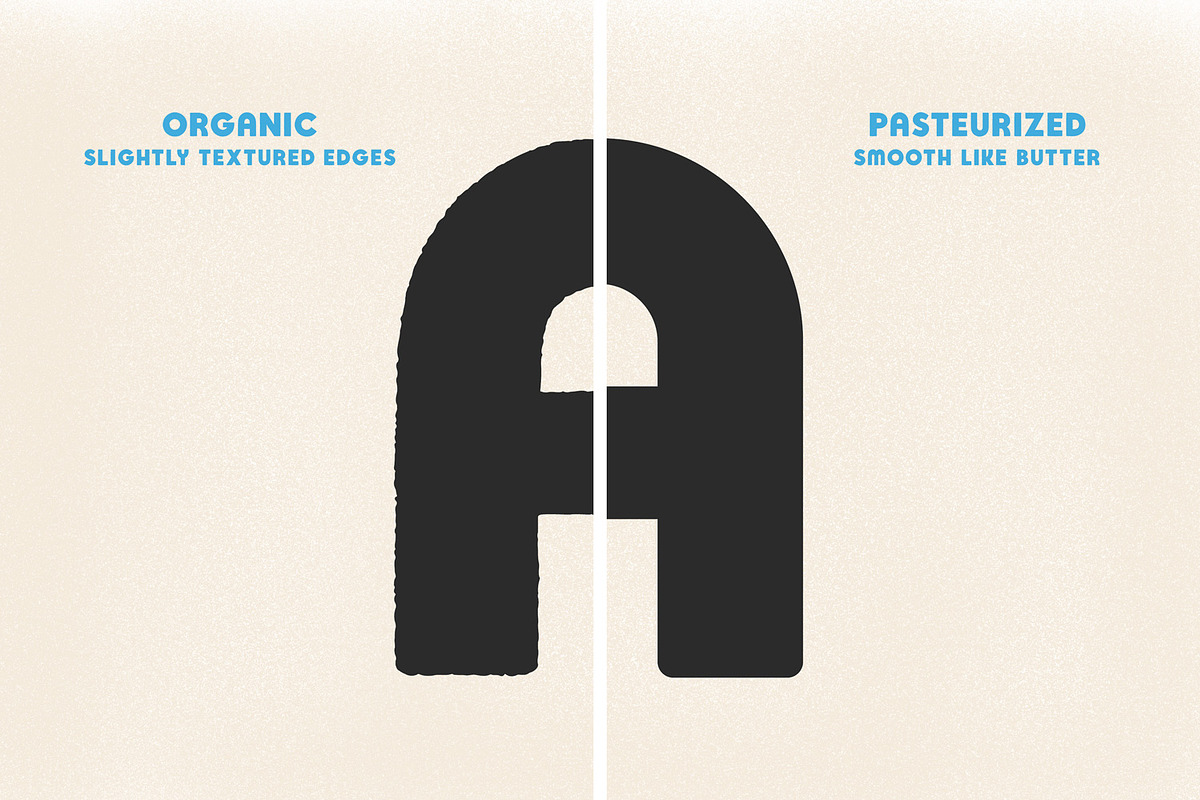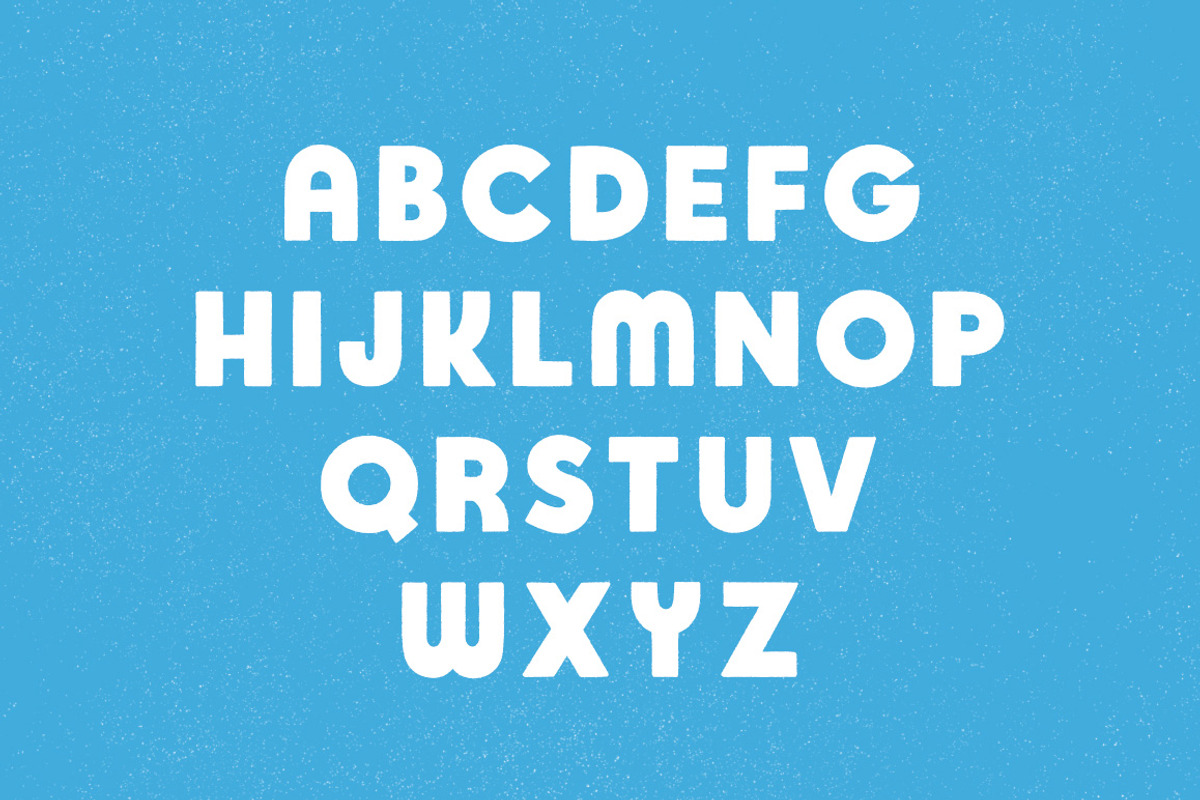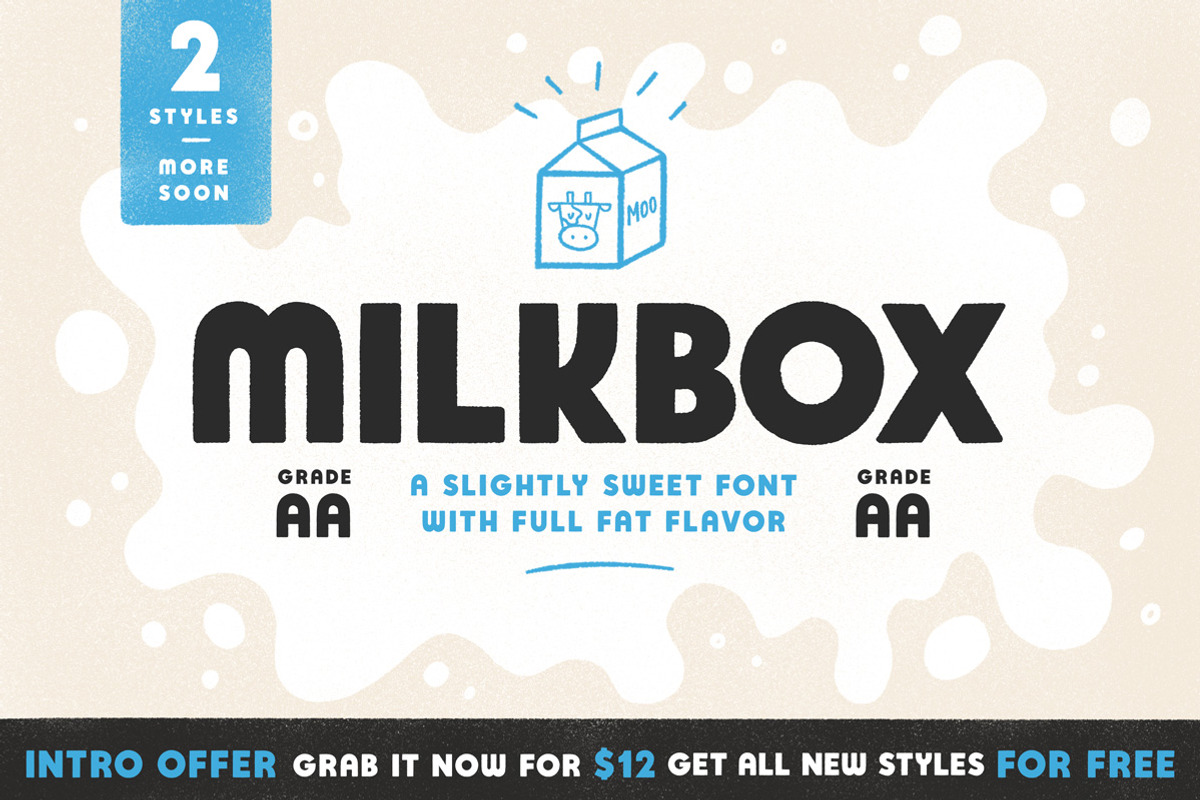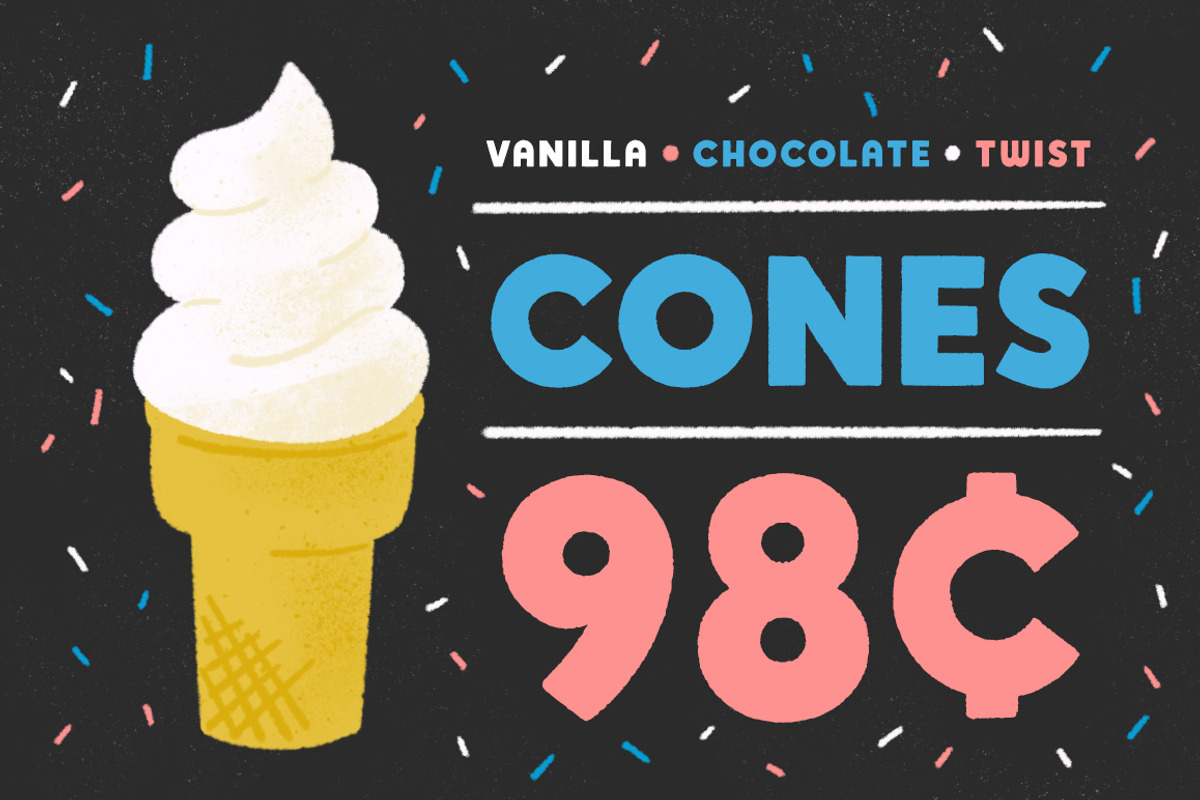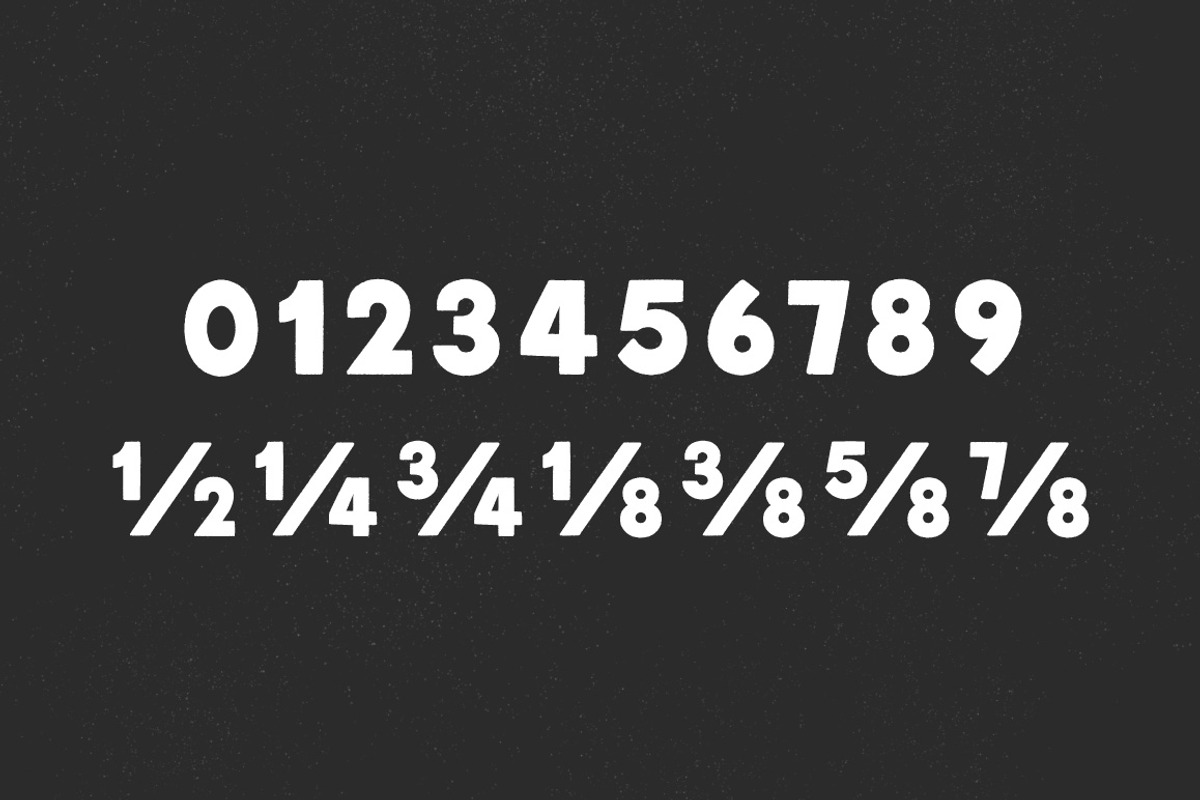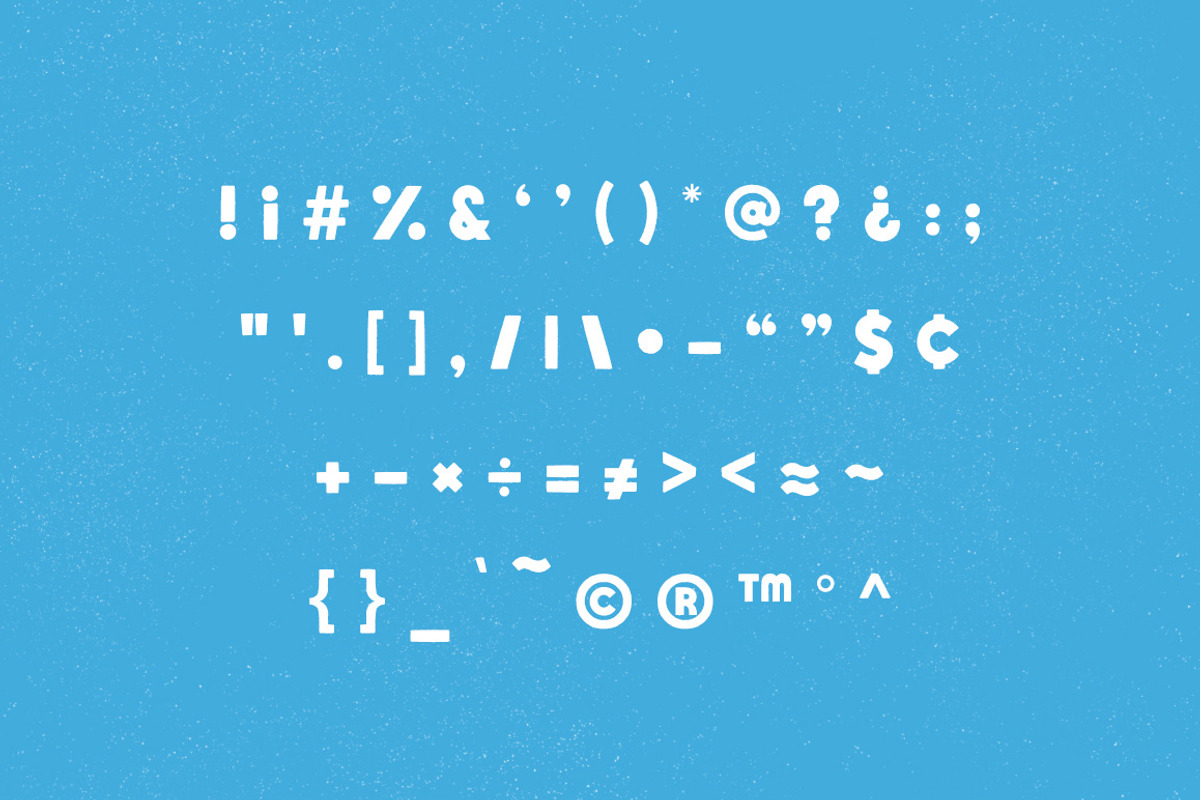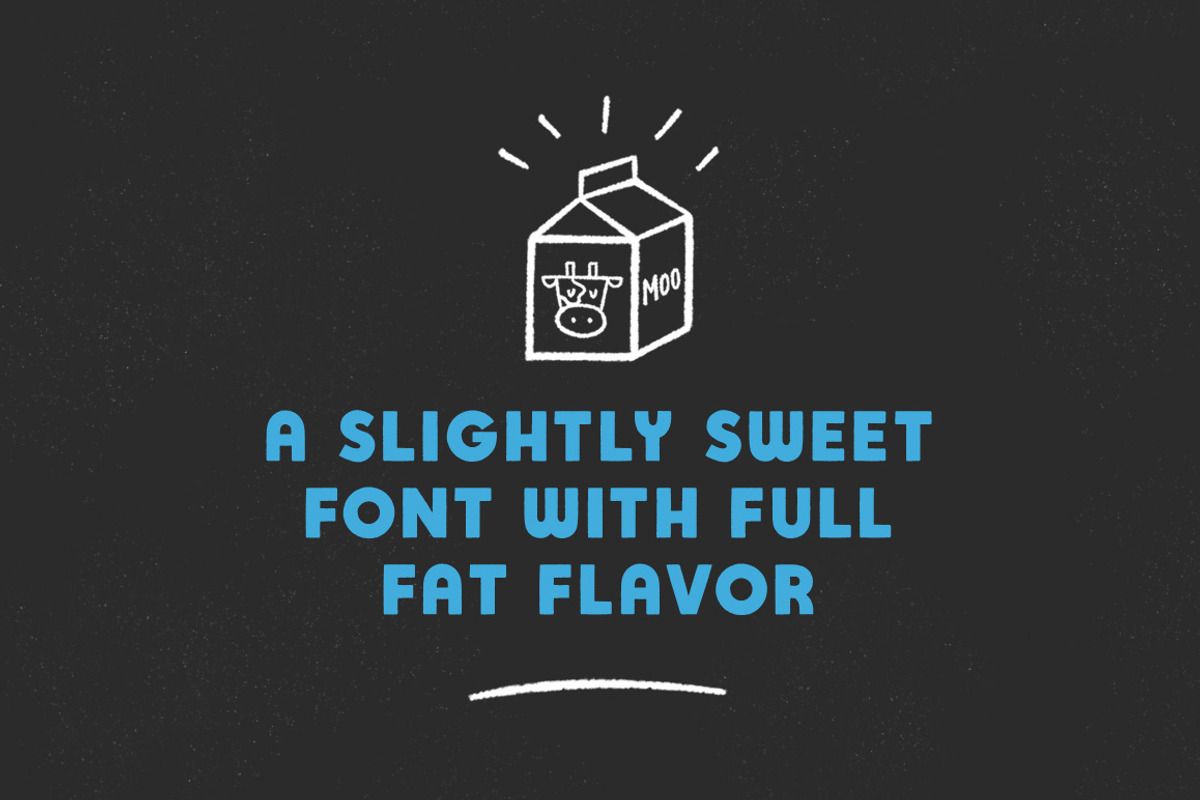
Milkbox Font
Milkbox is an uppercase hand drawn OTF font raised on sunshine and green grass. There are two versions included: Organic (lightly textured edges) and Pasteurized (no texture, smooth like butter). Both versions have a full fat flavor and work great on all sorts of projects. Two styles debuting now, with more in the works. Buy it now for $12 and receive all new styles for free! Price will increase as more styles are added.
Select special characters and punctuation (see photo for glyphs)
- There are two versions included: Organic (lightly textured edges) and Pasteurized (no texture, smooth like butter).
- Milkbox includes: Uppercase letters Numbers Select special characters and punctuation (see photo for glyphs) Show More
- There are two versions included: Organic (lightly textured edges) and Pasteurized (no texture, smooth like butter).
- Milkbox includes: Uppercase letters Numbers Select special characters and punctuation (see photo for glyphs) Show More
- Milkbox is an uppercase hand drawn OTF font raised on sunshine and green grass.
- Milkbox includes: Uppercase letters Numbers Select special characters and punctuation (see photo for glyphs) Show More